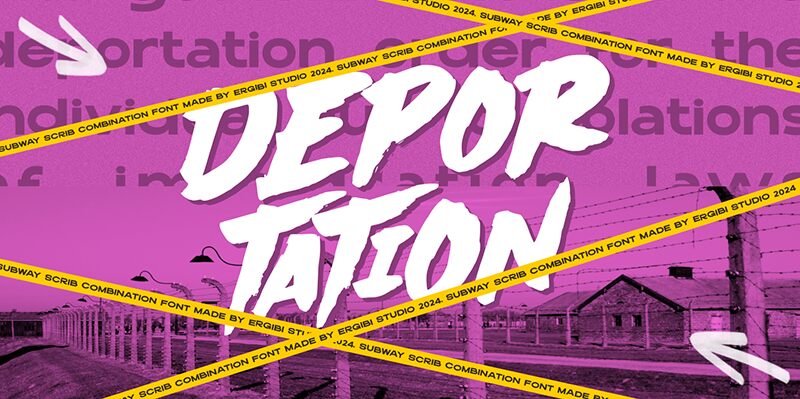
Subway Scrib
Subway Scrib font is a graffiti-inspired design with an urban aesthetic created by Riyadh Rahman. It has a brush style and bold weight which together with its thick strokes give this font an expressive look and energetic feel. This free font suits contemporary applications that include art, sport, and design projects for both new and experienced designers.
Integrate Subway Scrib into streetwear branding, music album covers, poster designs, logo creation, packaging labels, social media graphics backgrounds or overlays for websites homepages. Its brush style pokes creativity in book covers blogging page headings advertising materials and even video games elements.